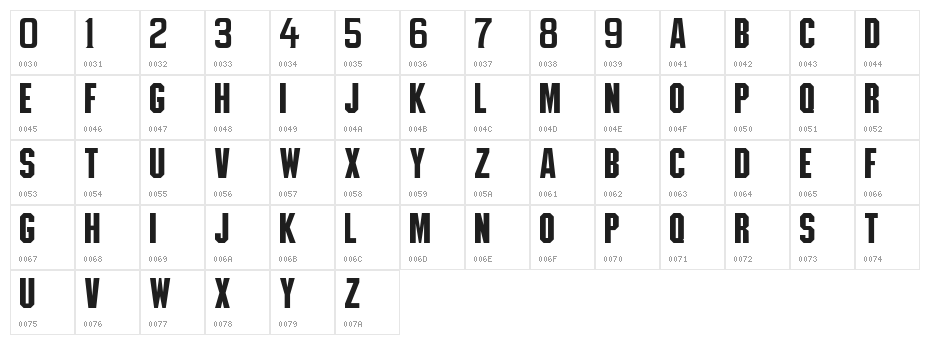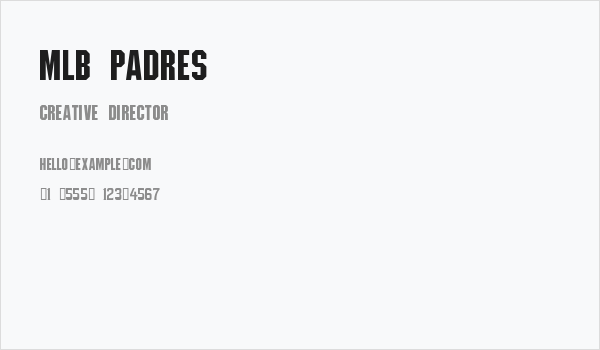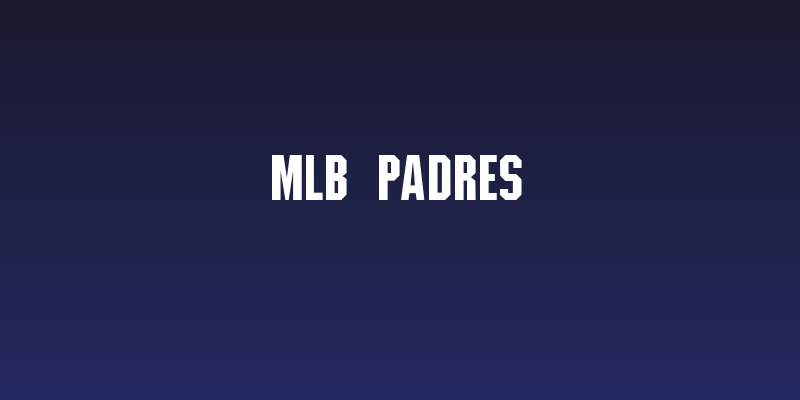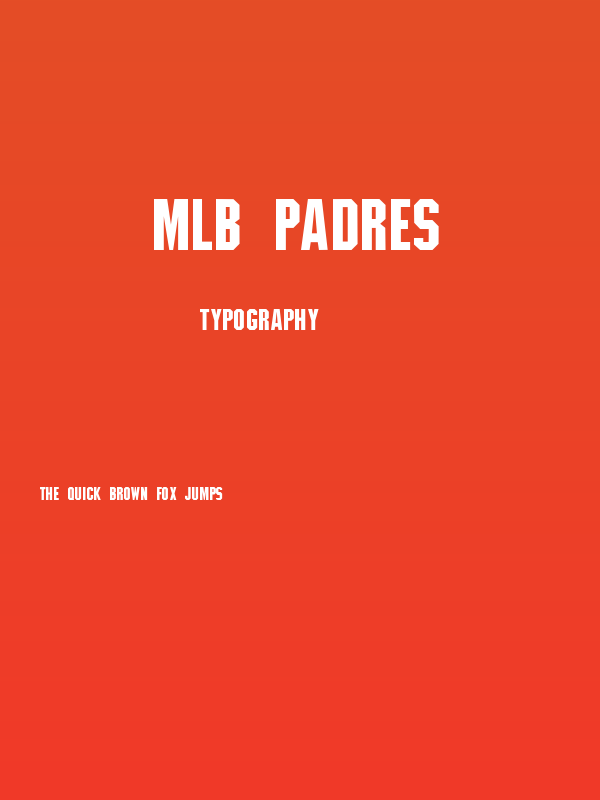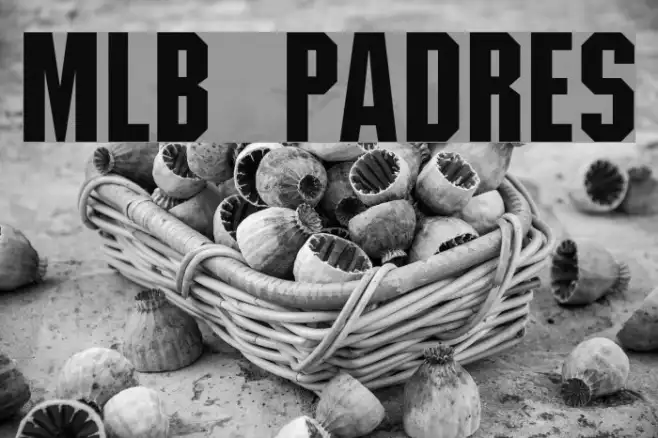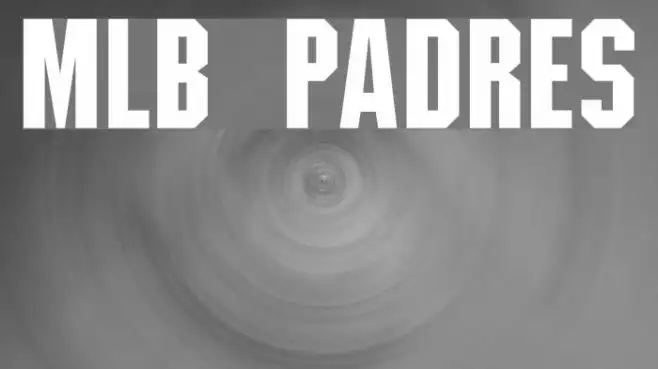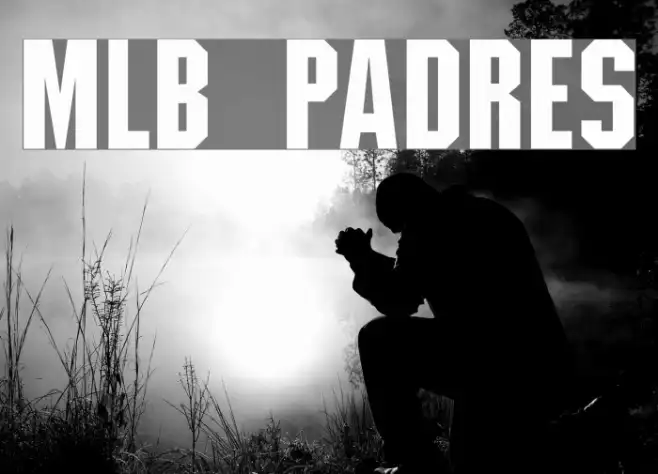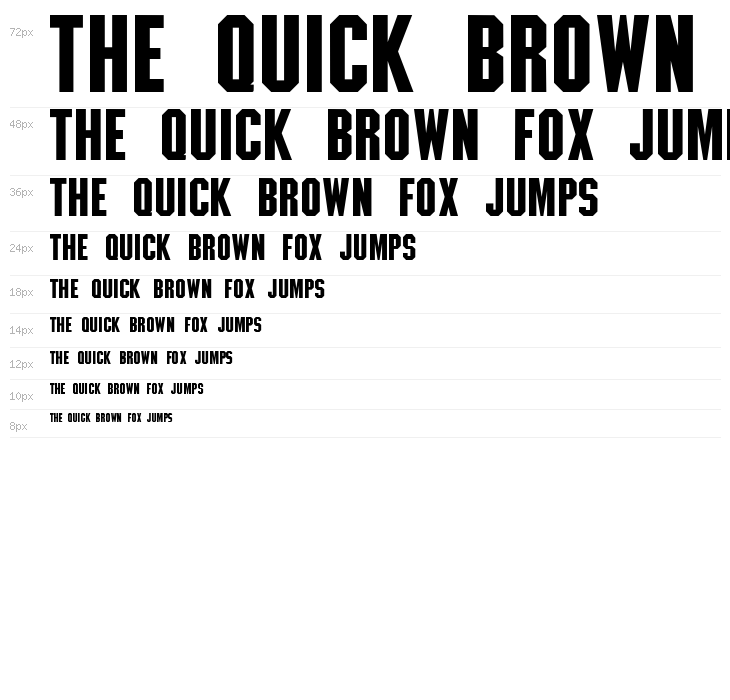
MLB Padres Font
MLB Padres Description
This font features a bold, impactful design with strong geometric shapes and a solid presence. The uppercase letters are uniform in height, with sharp angles and clean lines that convey a sense of strength and stability. The numbers are equally bold, maintaining the same geometric style, which ensures consistency across different uses. The lack of special characters suggests a focus on alphanumeric clarity. This font is ideal for situations where a commanding and assertive visual impact is desired.